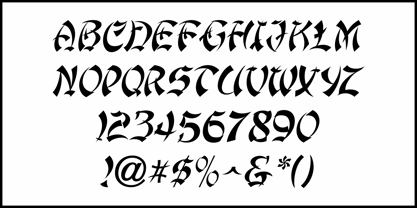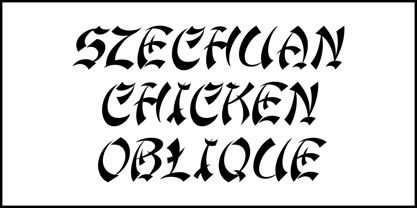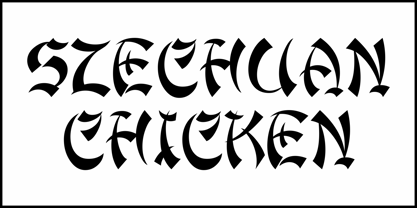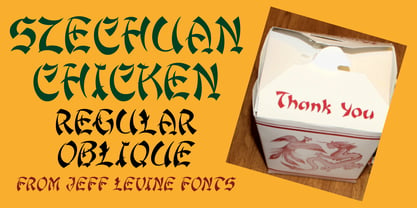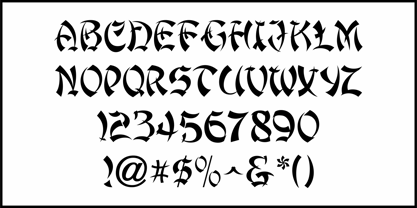
Szechuan Chicken JNL
by Jeff Levine
In the 1923 book "Art Alphabets & Lettering" by J.M. Bergling there is an Asian influenced alphabet that served as the model for Szechuan Chicken JNL - which is available in both regular and oblique versions. Asian-inspired lettering is part of the many unusual typographical choices at Jeff Levine Fonts where you can find a large library of unique type designs.